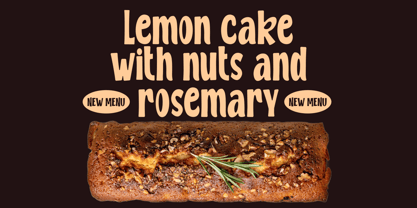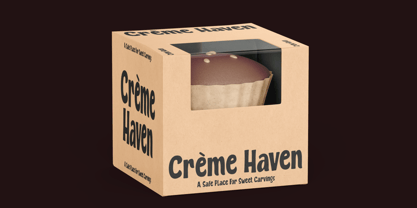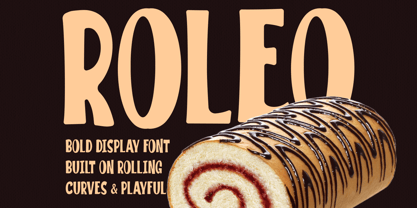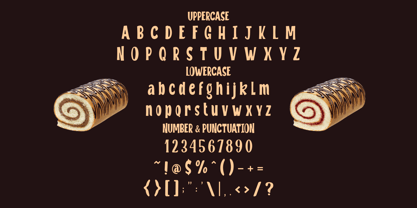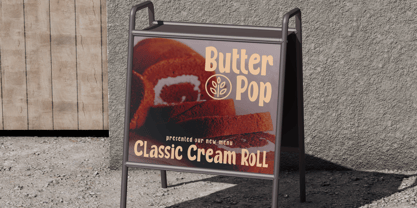
Roleo
by Shanaf
The Roleo Font Family was designed by Yesie Erma Yunita and published by Shanaf. Roleo contains 1 styles. More about this family
Roleo Modern Display Font is built with thick, rounded letterforms and a strong visual presence. The characters feel wide and soft, creating a friendly and inviting rhythm. Stroke weight stays bold and consistent, which helps headlines stand out instantly. Curved shapes dominate the structure, giving the font a smooth and flowing personality. Corners feel gently rounded, avoiding sharp or rigid impressions. The proportions lean slightly tall, keeping words readable even at large sizes. Letter spacing feels relaxed, allowing text to breathe in branding layouts. Roleo Modern Display Font delivers a modern display style that feels warm and approachable. The overall form supports playful communication while maintaining clarity. This makes the font reliable for eye catching titles and brand names. The style fits modern, playful, and food focused branding themes. This font works especially well for bakeries, cake shops, bread brands, dessert businesses, cafes, pastry studios, and food product labels. It supports usage across logos, branding systems, packaging, posters, advertisements, headlines, menus, invitations, stickers, book covers, magazine titles, and greeting cards. The rounded display style helps food brands feel welcoming and memorable. It communicates comfort, joy, and creativity without looking childish. The font performs well in both print and digital formats. Multilingual character support allows consistent branding for local and international markets. Roleo Modern Display Font helps food businesses build a clear identity that feels friendly, modern, and easy to recognize.
Designers: Yesie Erma Yunita
Foundry: Shanaf